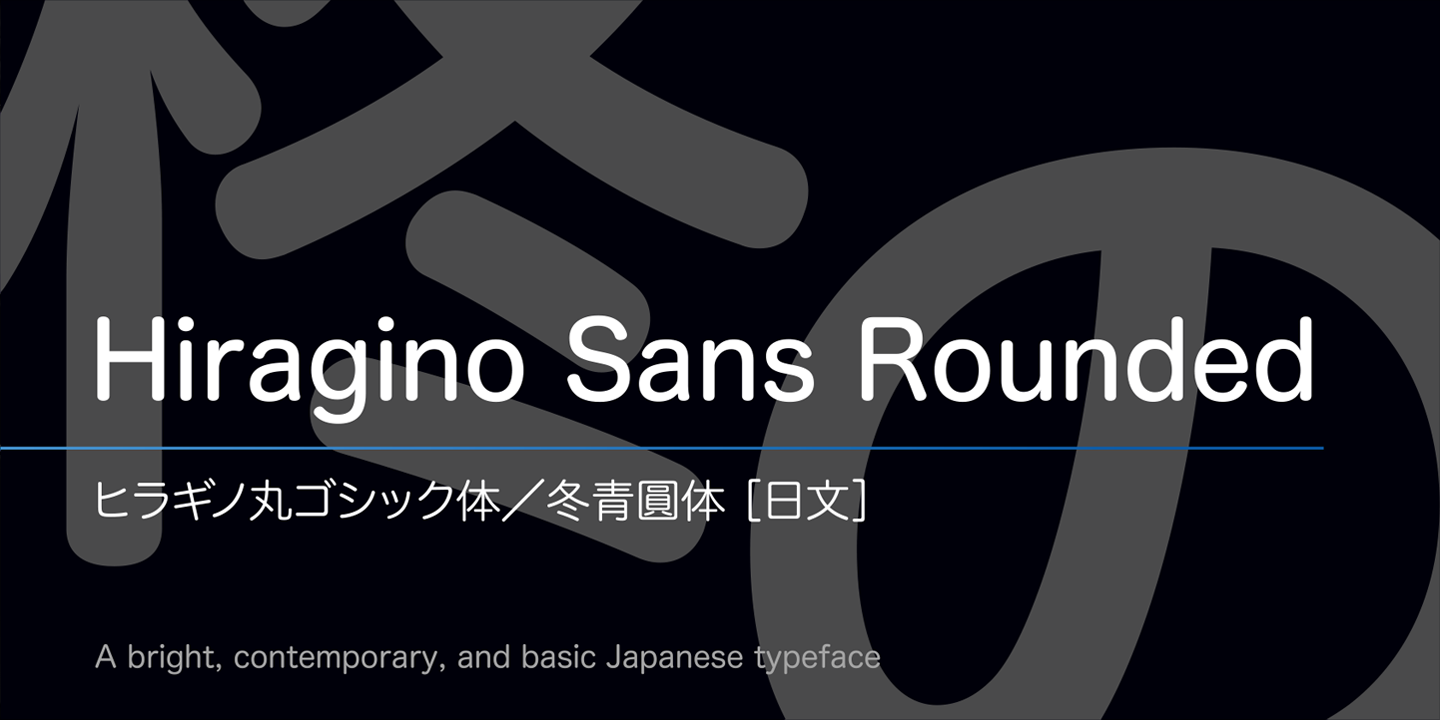
Hiragino Sans Rounded Font Free Download is a clean and modern sans-serif typeface characterized by its smooth, rounded edges. This font perfectly blends friendliness with professionalism, making it suitable for branding, user interfaces, advertising, and editorial designs.
With its balanced curves and open letterforms, Hiragino Sans Rounded Font Free Download enhances readability while adding a touch of warmth to your projects. Whether used in headlines or body text, this font stands out with clarity and approachability.
Bring a fresh, modern, and inviting look to your designs with Hiragino Sans Rounded Font Free Download. If you want a font that combines sleekness and softness effortlessly, Hiragino Sans Rounded is an excellent choice.